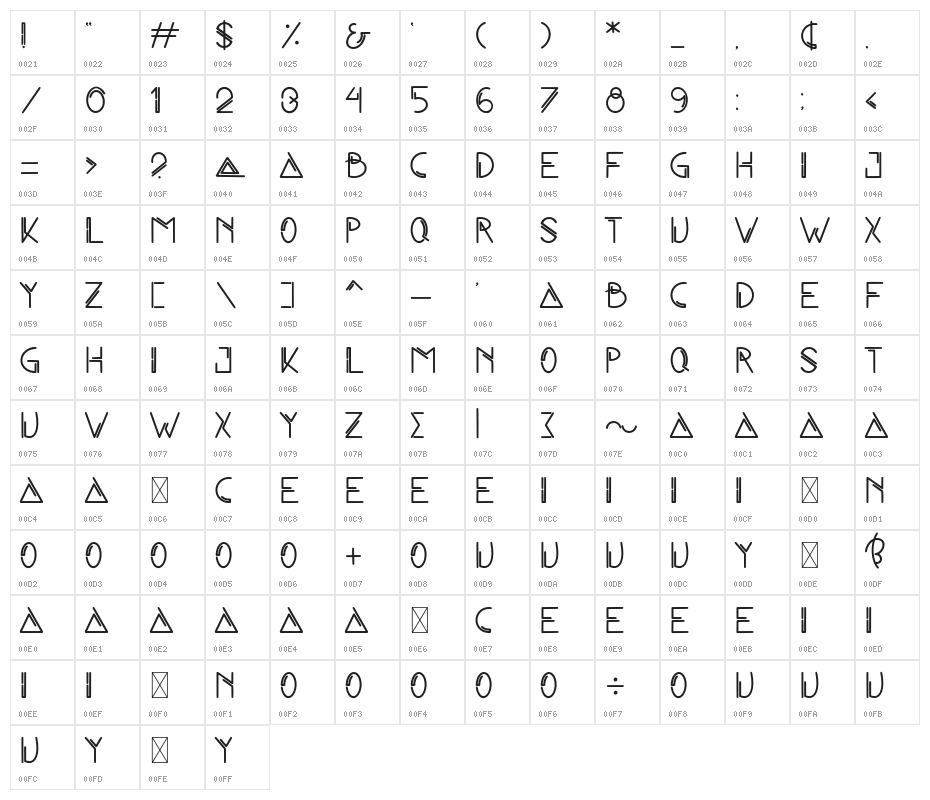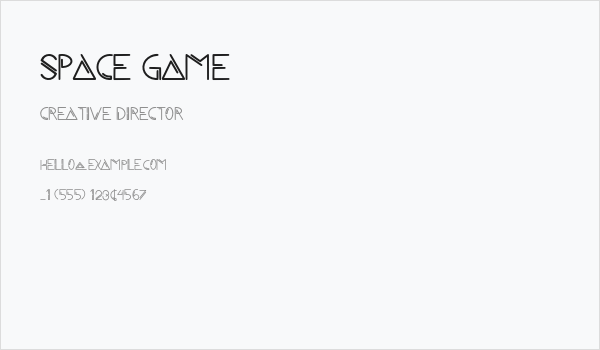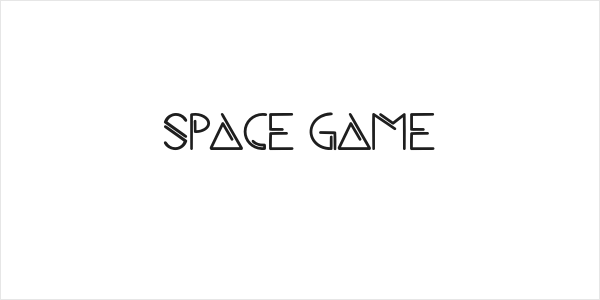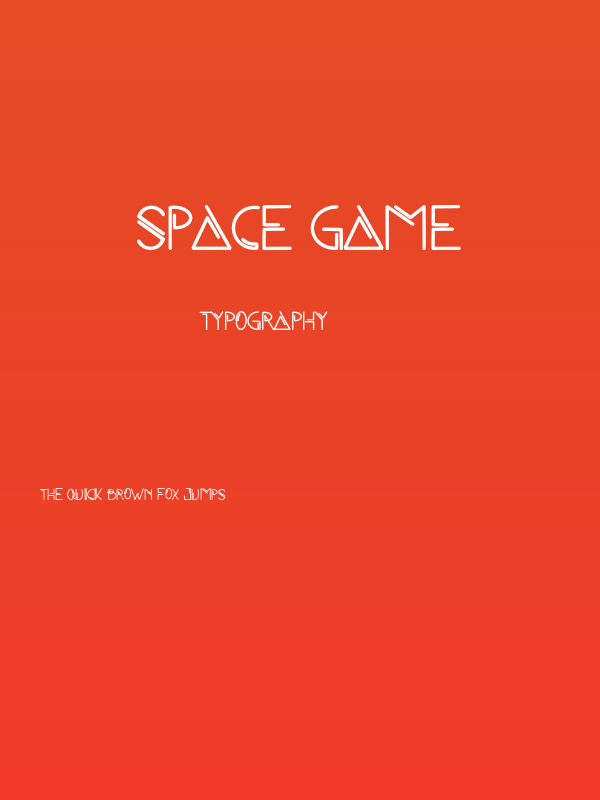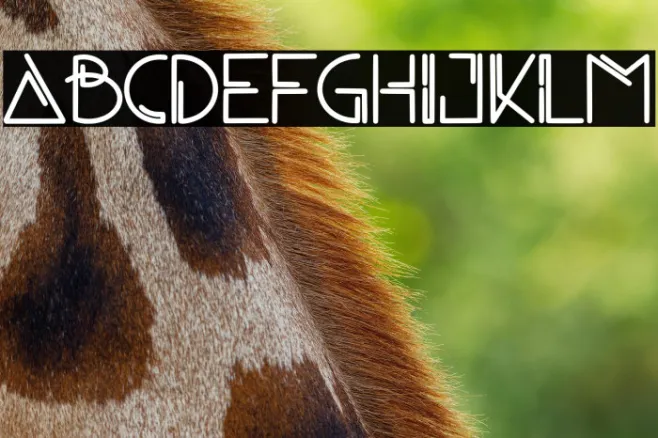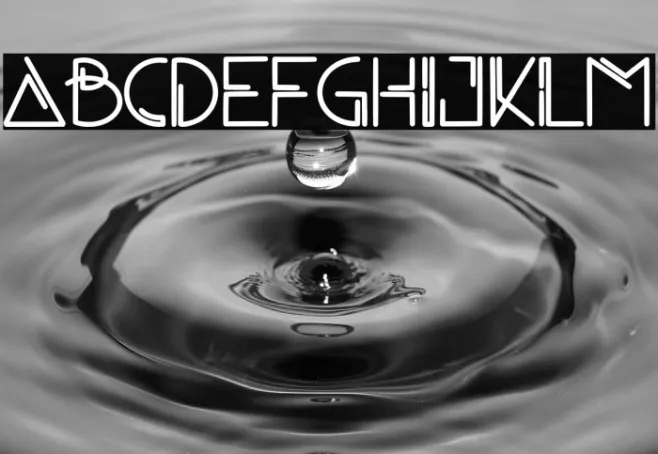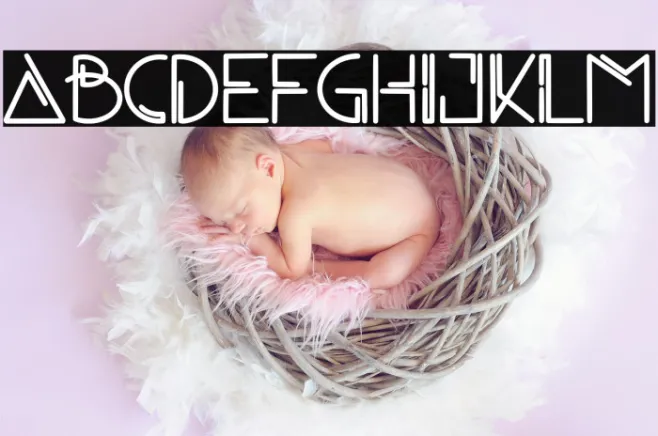
Space Game Font
Space Game Description
This font features a futuristic and geometric design, characterized by its angular and linear elements. The uppercase letters are distinct with sharp angles and clean lines, creating a sense of modernity and innovation. The lowercase letters maintain a similar style, ensuring consistency throughout the typeface. Numbers and special characters are crafted with the same attention to geometric precision, making them ideal for digital and tech-themed projects. The overall appearance is sleek and minimalistic, with a focus on clarity and readability, suitable for conveying a sense of advanced technology or space exploration.
| Proposed Projects | Ideal for sci-fi themed designs, tech branding, video game interfaces, and futuristic posters. |